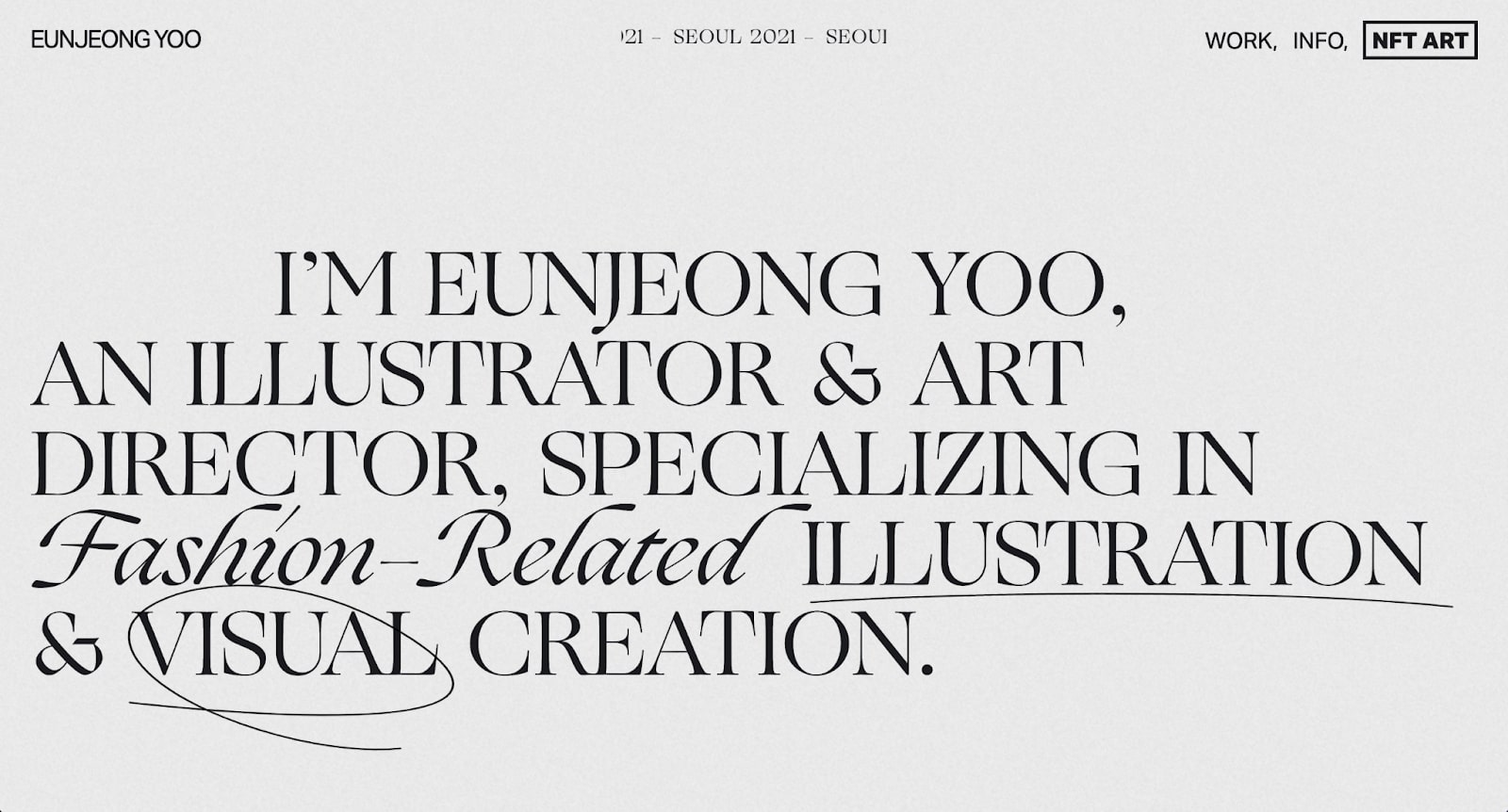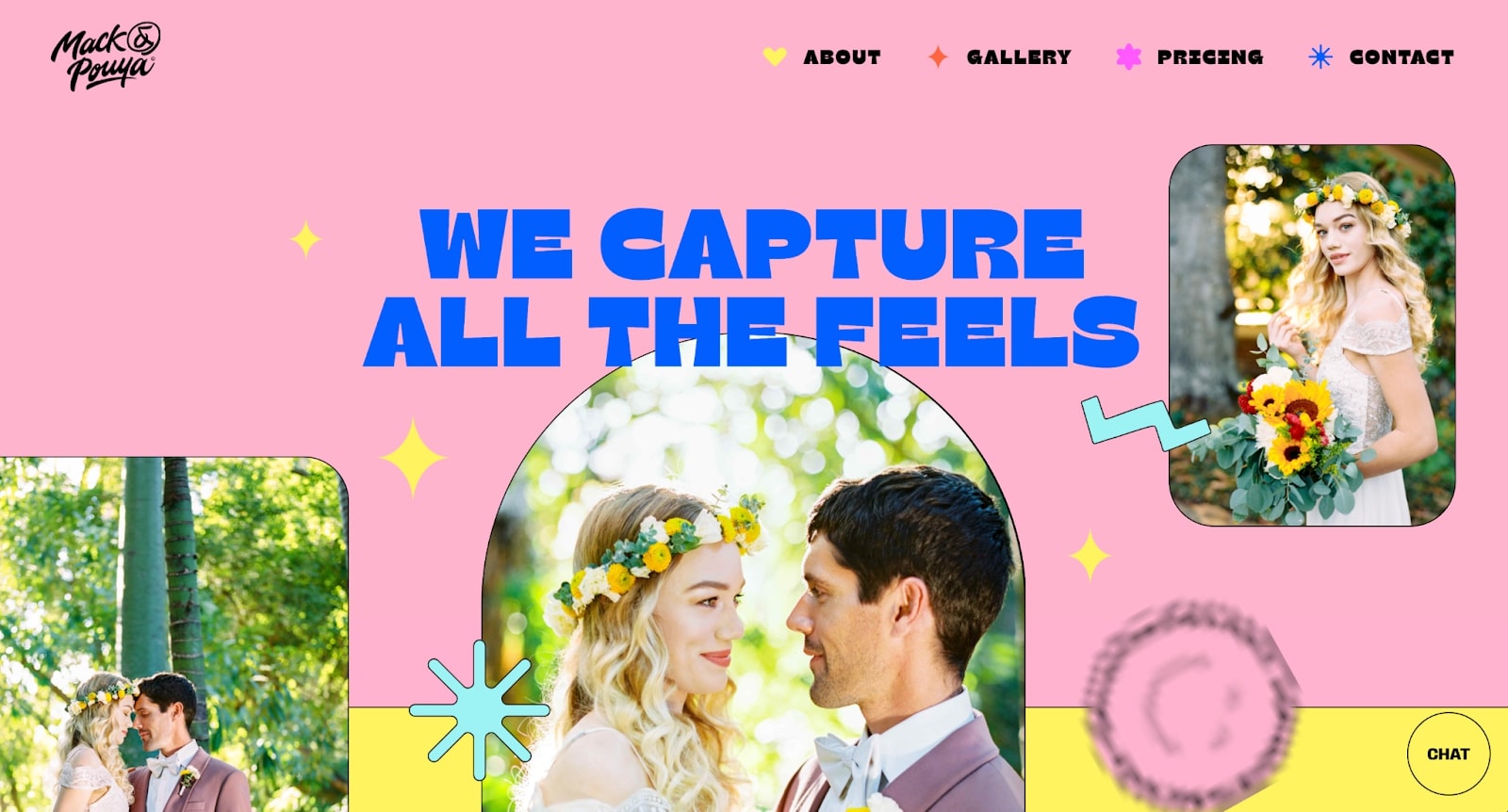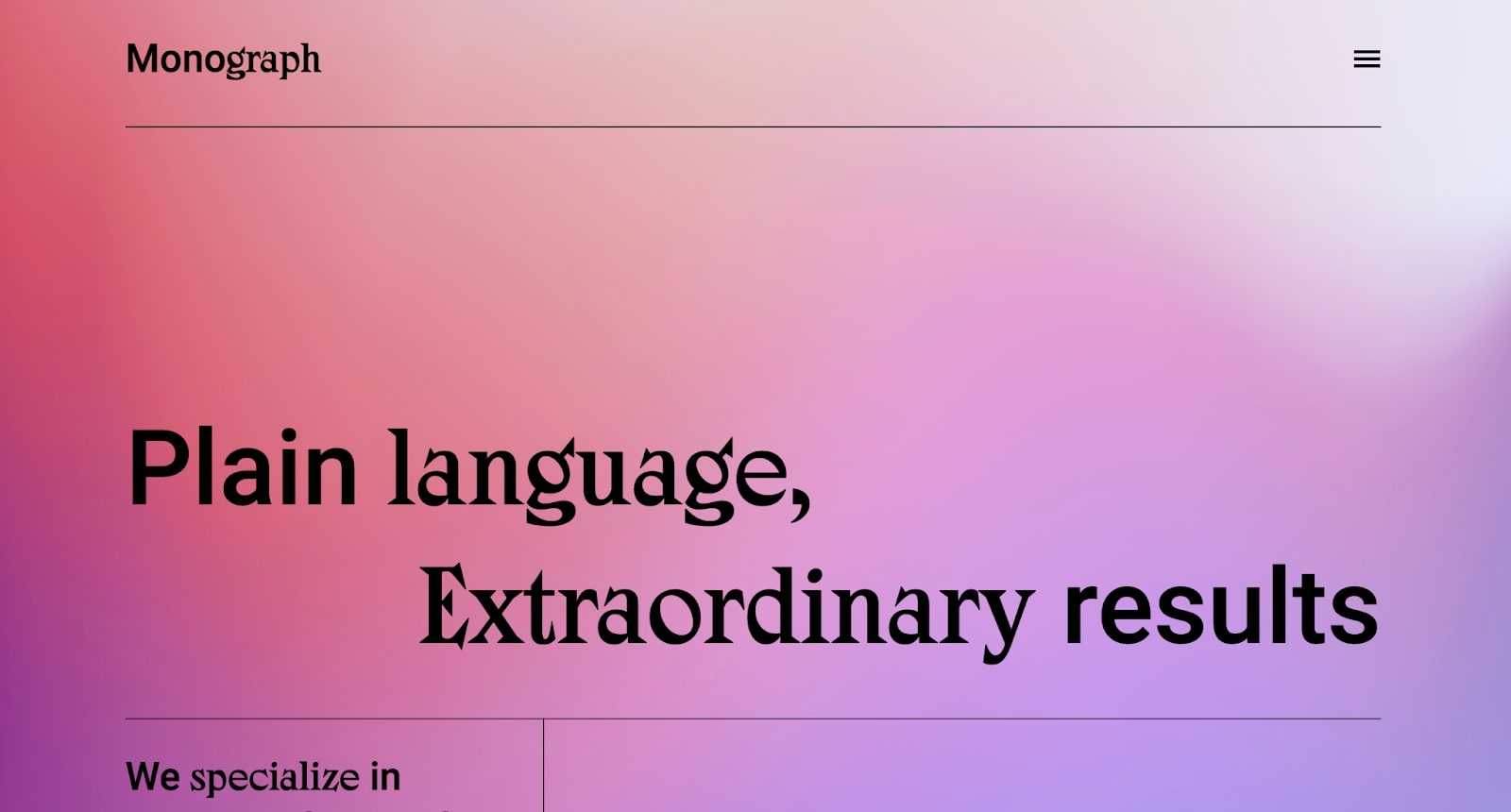
Typography, font, and typeface are focal design elements.
Their aesthetic nature influences people’s perception of a brand, making font all the more necessary for digital designers to consider when designing for the web and beyond.
Font goes the extra mile. It cements a brand’s messaging, aligning a brand to its target audience with each line of header text and subtext within a web design.
Key Insights
- Standout fonts elevate branding, UI, and editorial design.
- Typography shapes personality, improves readability, and enhances user experience.
Below you’ll find 20 cool fonts worth checking out for personal use or your next web or graphic design project. And don’t worry, we’ve included both free and paid fonts!
1. Graphik (paid)
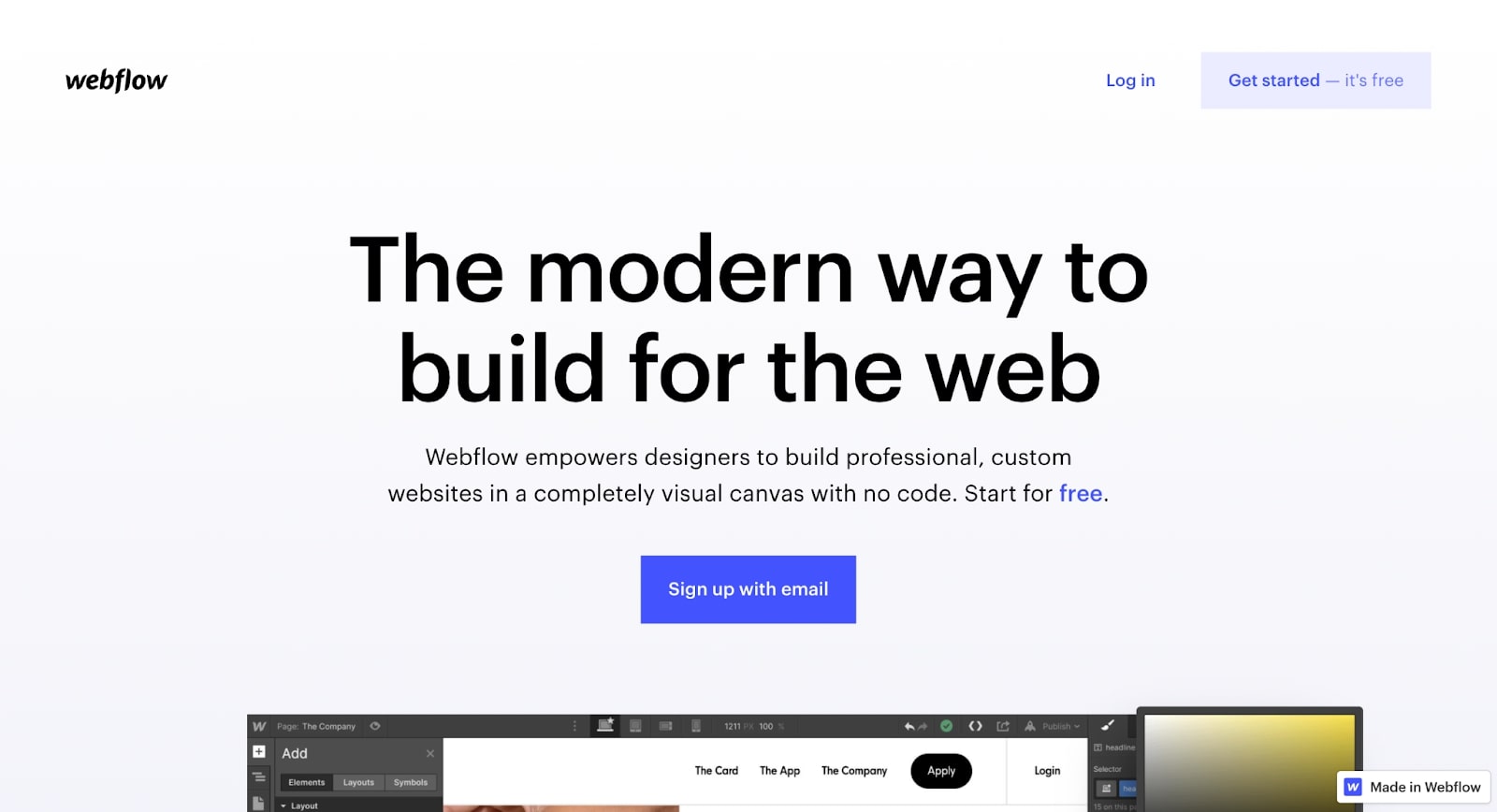
Graphik is a sans-serif typeface celebrated for its contemporary and professional form. It’s inspired by grotesque and geometric sans-serif fonts from the 20th century, which are now gaining popularity in 21st-century design.
Designed by Christian Schwartz, this typeface is featured on a collection of digital and print media, giving sans-serif fonts such as Arial and Lato a run for their money.
The Graphik family has 18 different styles, from bold to regular, compact light, semibold, medium, and so on. Graphik is a gorgeous typeface with a wide range of font styles, each contemporary in its own respect.
2. Recoleta (paid)
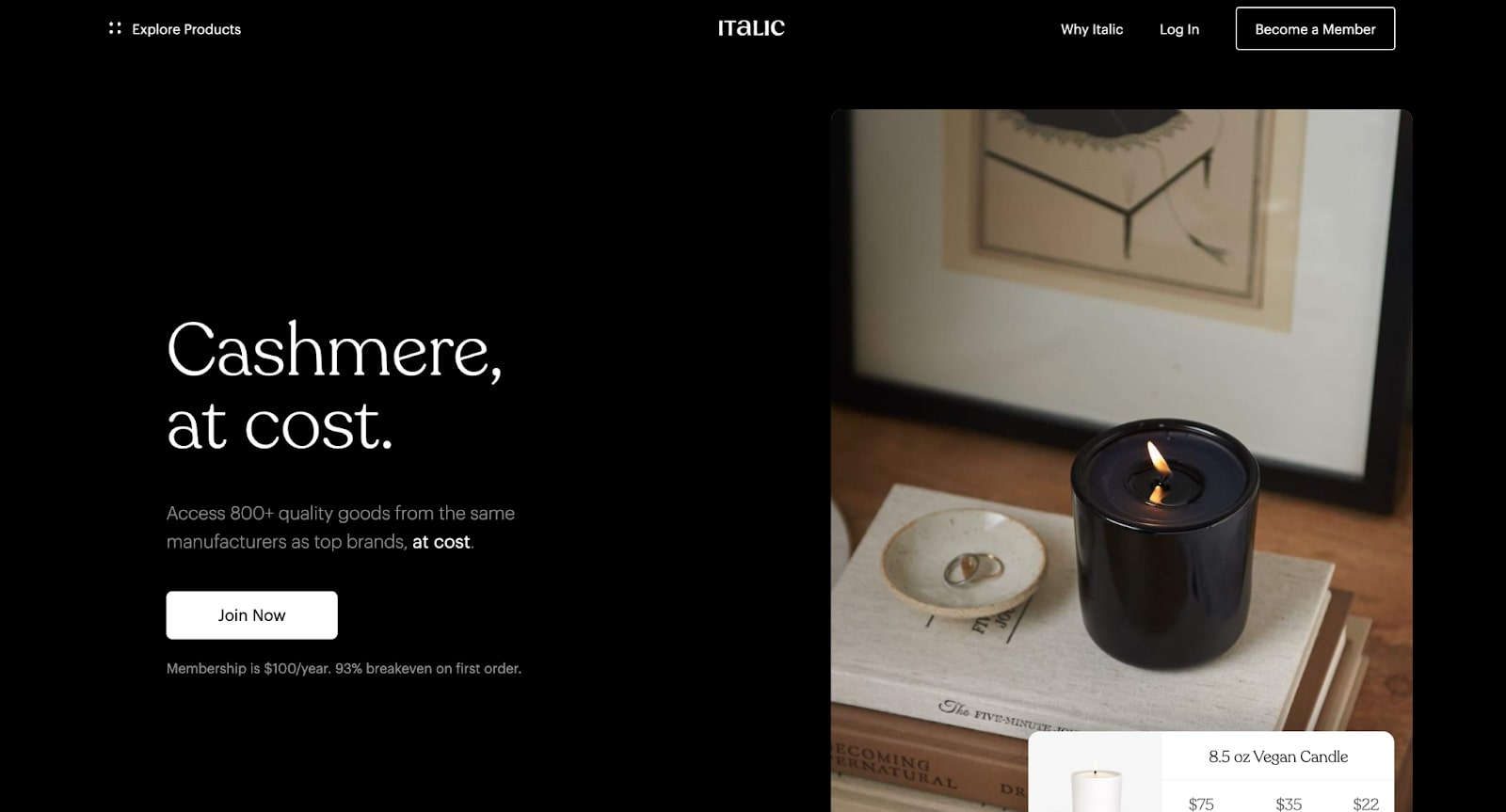
Recoleta is a bold font with subtle curvaceous elements that convey a Latino-retro aesthetic. You see its Latino hints throughout the lettering in the design of each ligature and glyph — the characters come together boldly and playfully, creating an OpenType font that truly resonates with the viewer.
Designed by Jorge Cisterna and later published by Latinotype, Recoleta’s typeface family contains 15 different styles. Each of which is gorgeous and flirtatious while remaining readable.
3. Neue World (paid)
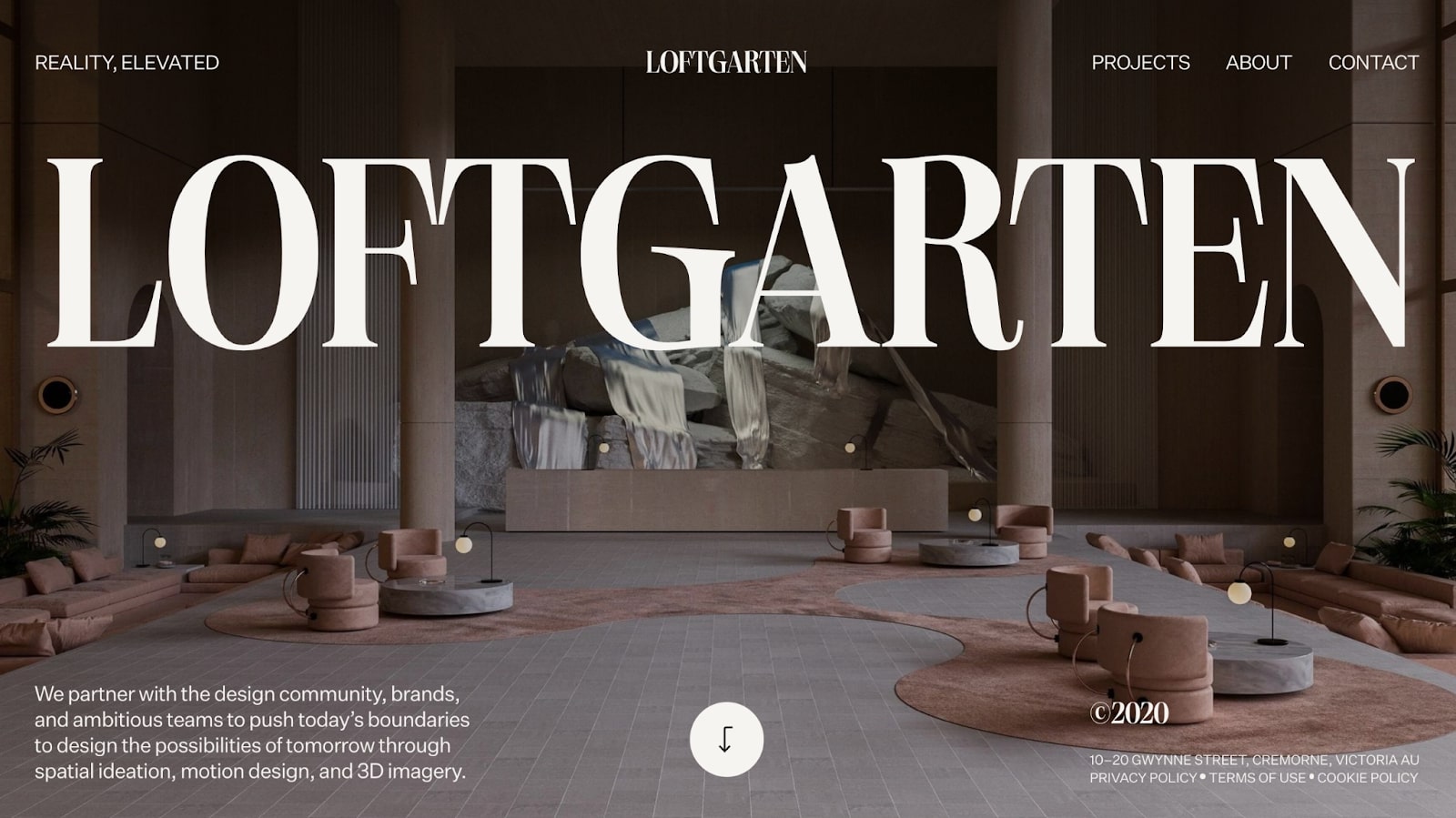
Vintage meets vogue is the only way to describe this serif typeface. Neue World encompasses the mode high-fashion aesthetic of the 1960s with a commercial take.
The Neue World serif font family comes in 48 styles and a variable cut, each stunning in their varying widths and weights. Designed by Mathieu Desjardins and published through Pangram in 2020, this typeface is the new kid on the block. Neue World is one of those fancy fonts that can take a brand to new heights.
4. Editorial New (paid)
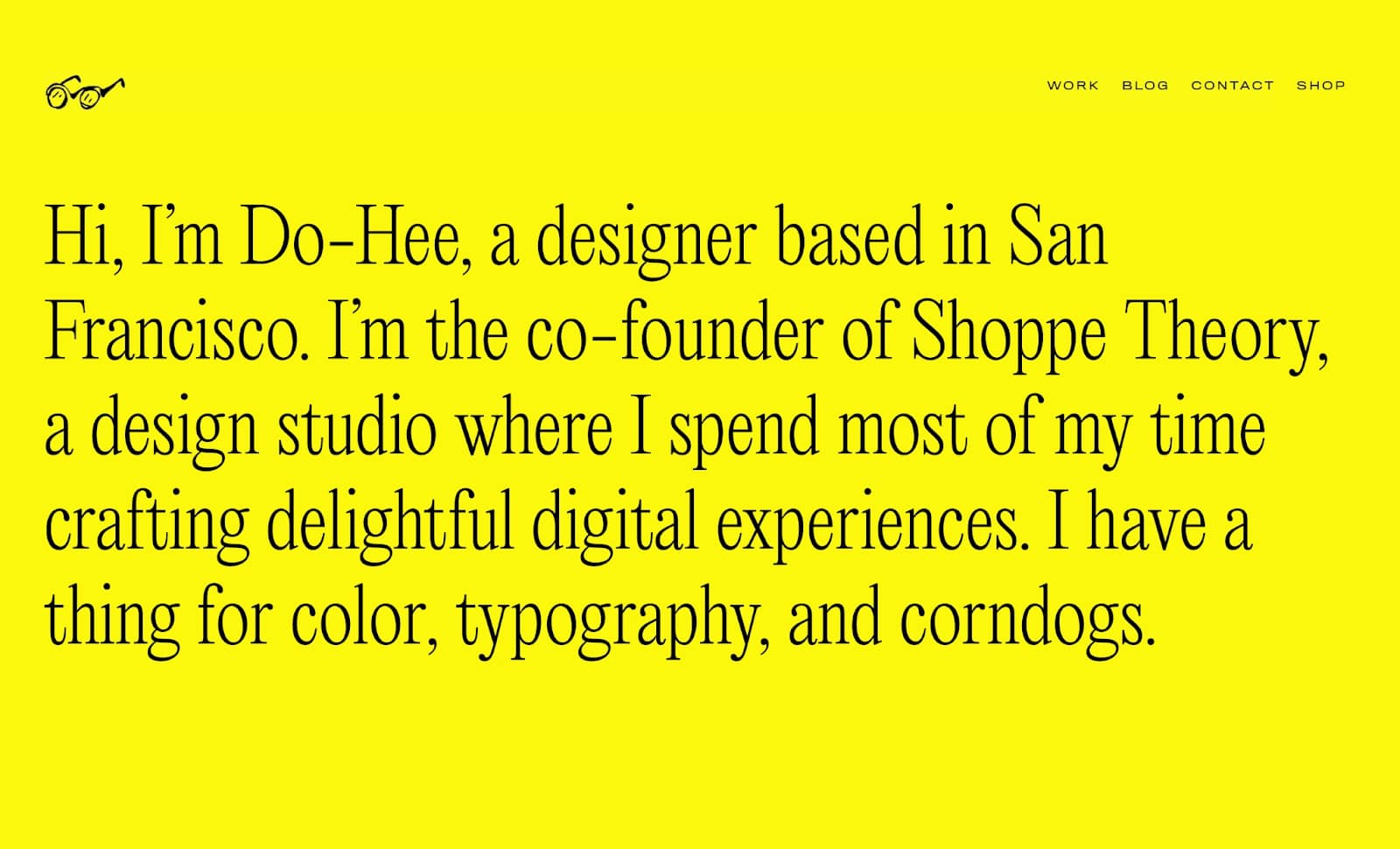
Another serif typeface designed by Mathieu Desjardins is Editorial New. Published through Pangram in 2019, this typeface is the predecessor of Neue World, and it fully lives up to its namesake.
Editorial New evokes an ’80s and ’90s retro aesthetic with its thin serif styling. Every glyph, ligature, and character is elegantly designed, bringing definition and life to a classic serif type font.
With 16 styles including a delightful take on italics, this font is both charming and elegant — ideal for any editorial medium.
5. Neue Machina (paid)
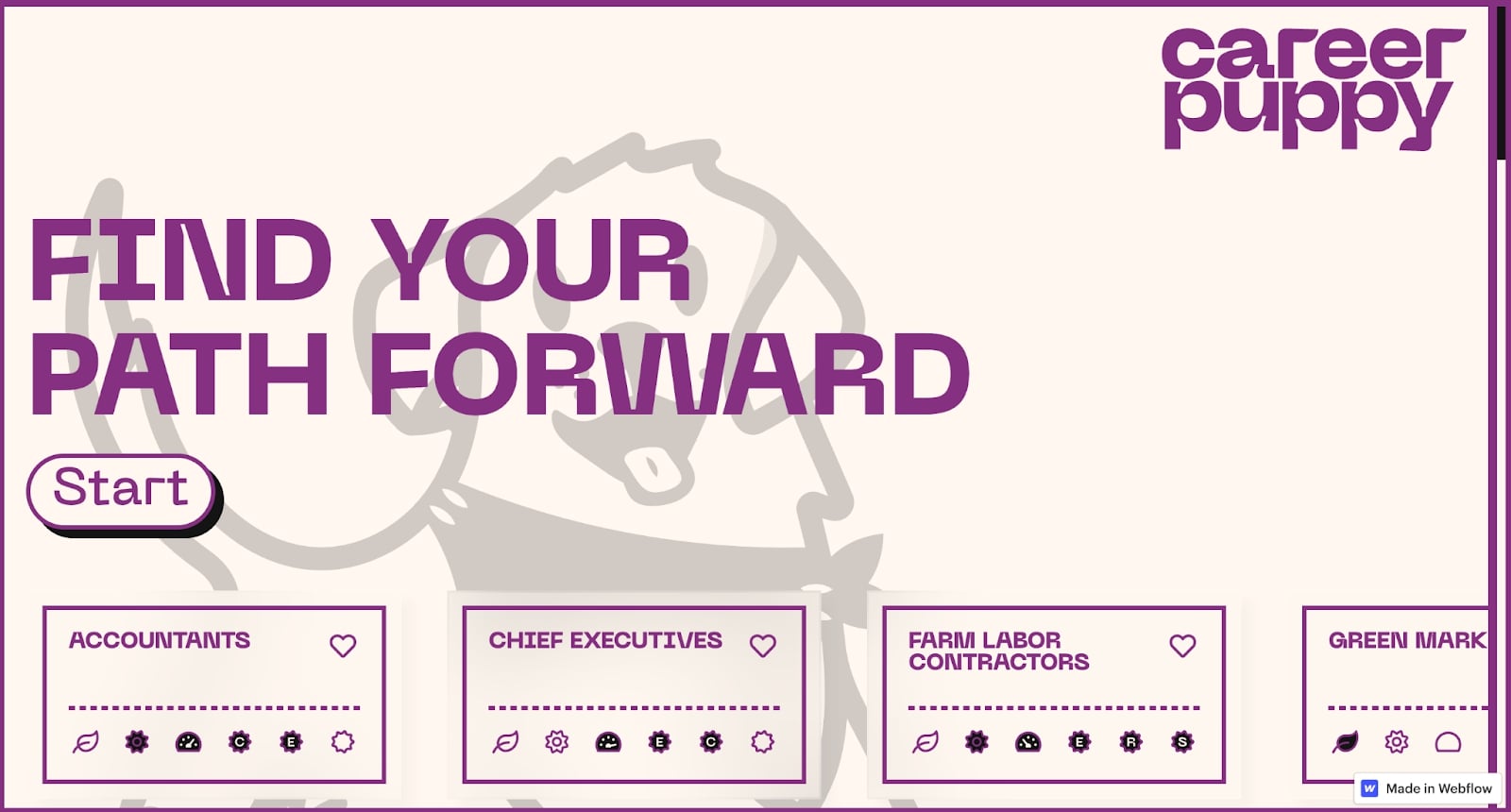
Neue Machina is another typeface designed by Mathieu Desjardins and published through Pangram Pangram. However, unlike the previous two typefaces by Desjardins, Neue Machina is a geometric type with stark curvature and spacing that feels utterly futuristic.
This is a cool font! It’s weighty yet light, with cyberpunk elements emanating from its fun yet mature sci-fi design.
6. Inter (free)
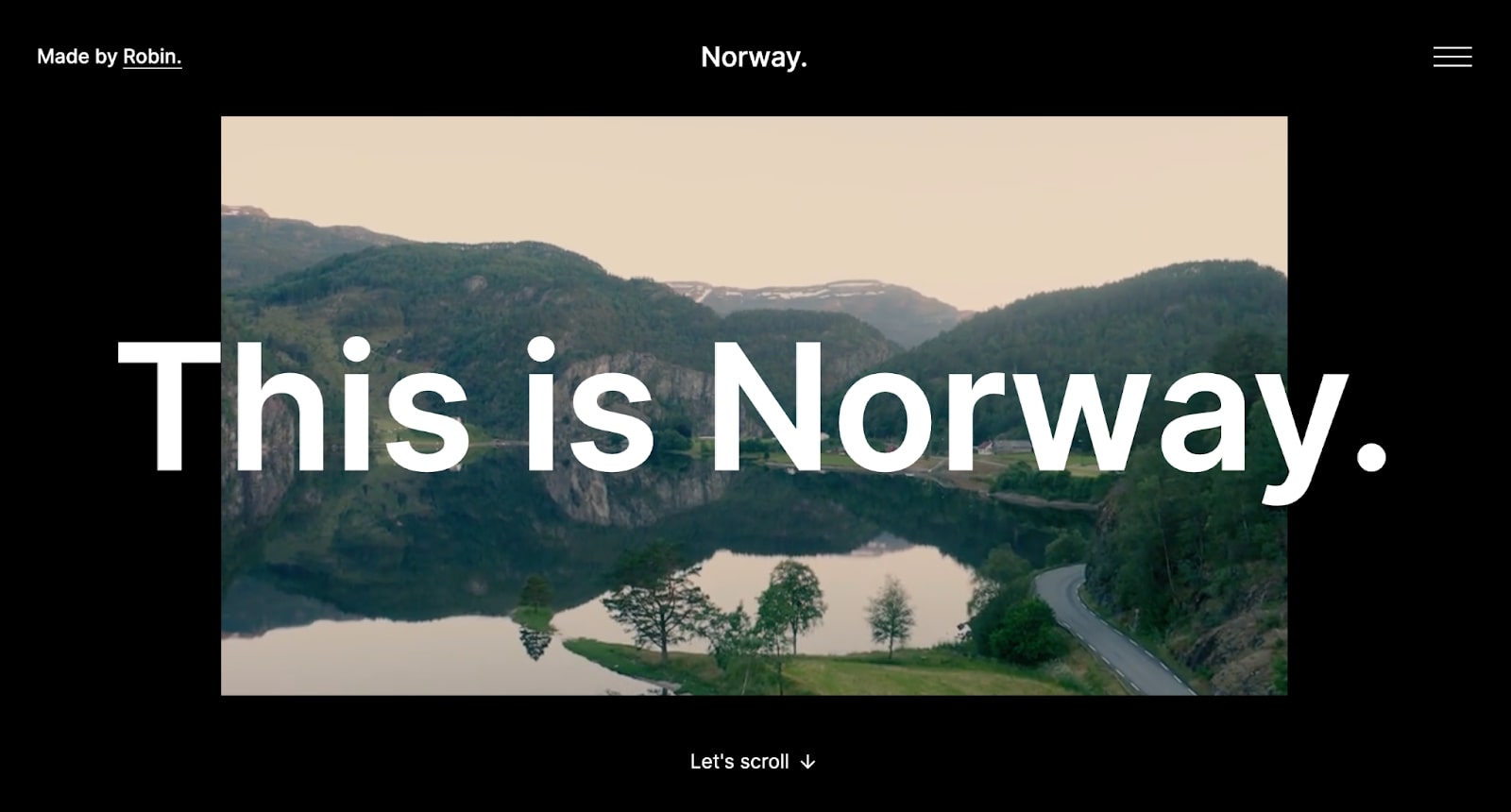
Designed by Rasmus Andersson and published through Google Fonts (it’s free!), Inter is a versatile and readable typeface.
With the range in its styles, this is the ideal font for traditional uses, replacing sans-serifs such as Arial. Inter is suitable for whatever the digital medium, be it a web page, iPhone, or Android. Consider Inter your go-to font if you’re searching for a conventional typeface with a bit of oomph!
7. Relative (paid)
Relative is an OpenType sans-serif font known for its range. Designed by The Entente in 2011, this type font family comes in two halves: Book to Black (with italics) and faux monospace. This range gives you versatility and readability.
Coming in four weights and 12 styles, Relative is great for both personal and commercial use due to its duality.
8. EB Garamond (free)
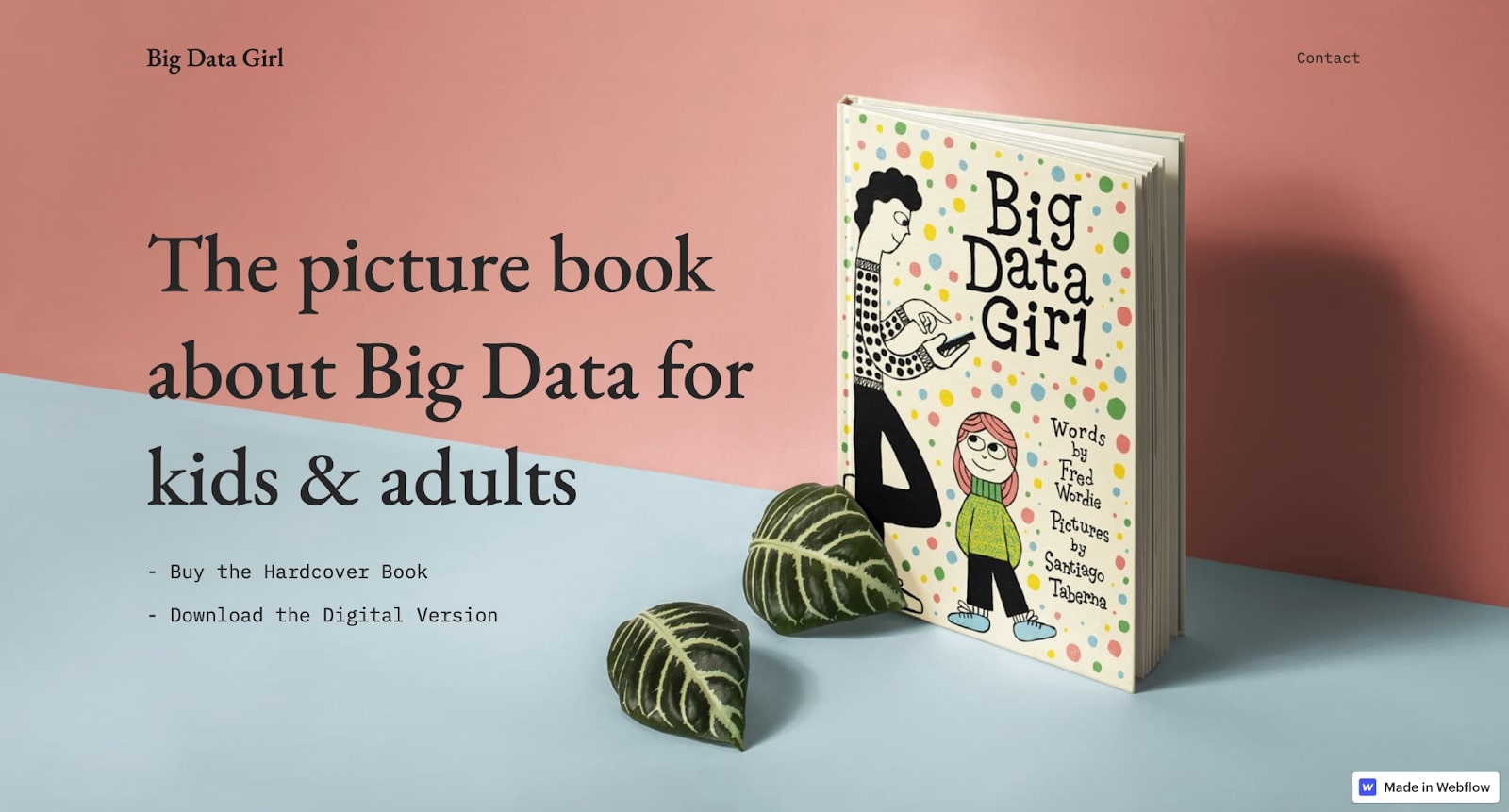
If you’re looking for a serif font that is both girly and refined but want to explore typefaces outside of the typical Playfair Display, EB Garamond is the font you’ve been seeking.
Designed by Georg Duffner and published through Google Fonts, this typeface is a beaut. Its classical body and form invoke a timeless feel — truly an ideal rendition of the Garamond font family.
EB Garamond comes in a variety of styles, from regular to medium, italic, semibold, and bold. This humanist font feels fresh yet retains the calligraphy style that made it the preferred typeface since the mid-16th century.
9. Reenie Beanie (free)
A decent handwriting font can be hard to find. They’re often either difficult to read or too juvenile in nature, making what was intended to be cool text a total eyesore.
Otto Attack Type is designed by Ivan Tsanko and available for free to download through his Instagram!